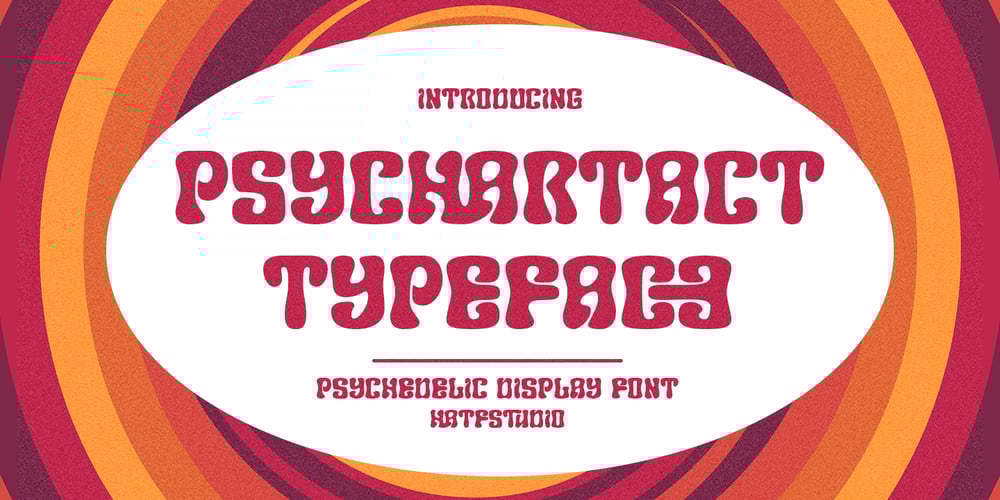
Psychartact Font Family was designed by Asep Rendi and published by Hatftype. Psychartact contains 1 styles and family package options. Psychartact is a retro display font that captures the essence of the psychedelic era. The bold, colorful letters feature intricate, eye-catching patterns that exude trippy vibes and a free spirit. This font is perfect for creating catchy titles and headlines for posters, album covers, merchandise, souvenirs and other retro-inspired designs. The hypnotic and captivating personality of the font is sure to transport viewers to another time and place.